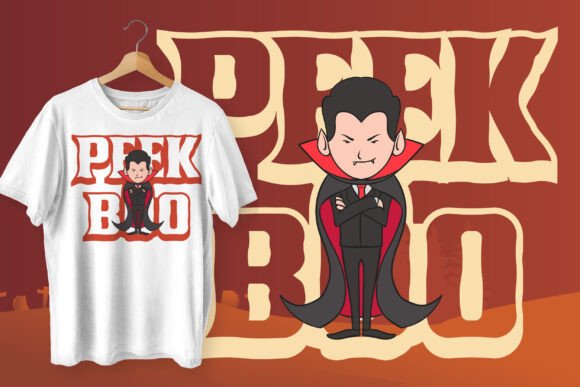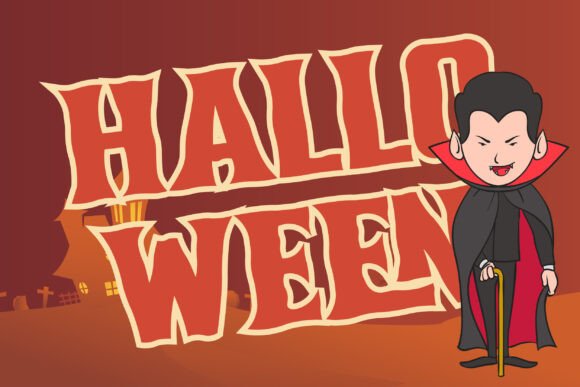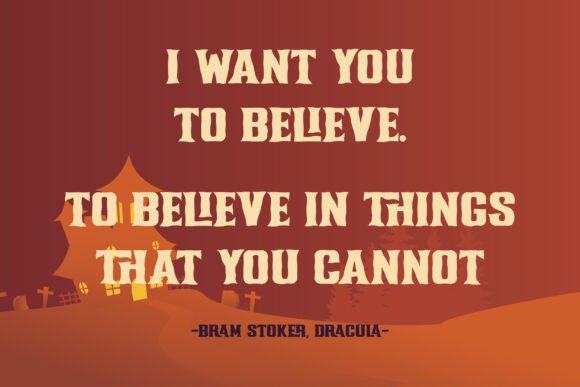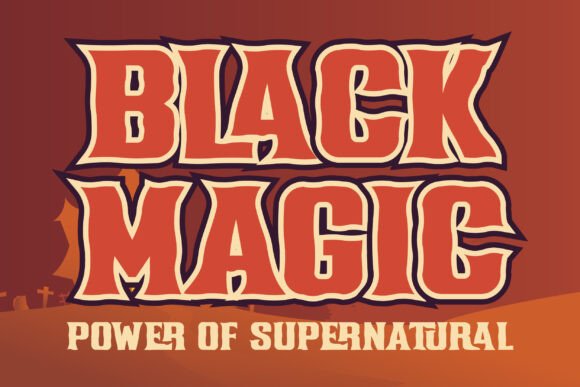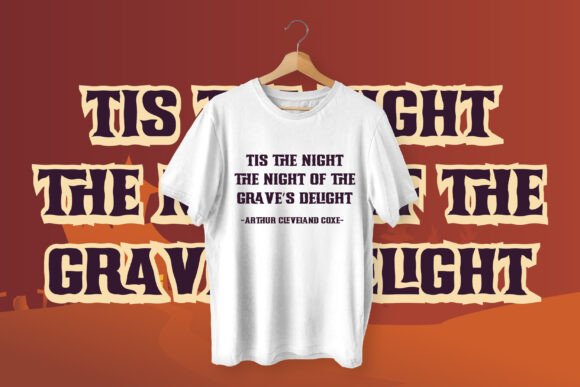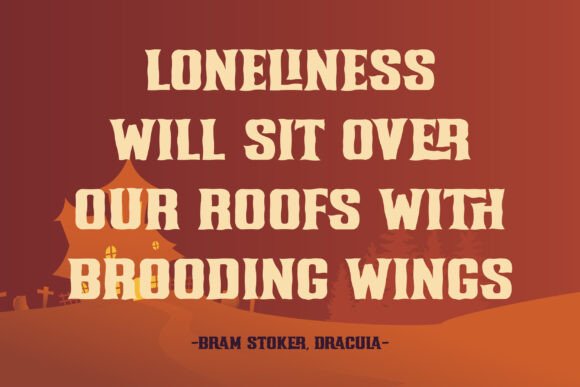
The Mysterious Allure of Dracula Secret Font
As a designer, I’ve had my fair share of late nights, pouring over font options for a project that’s just not quite coming together. I recall one particularly frustrating session where I was working on a spooky children’s book cover, and I just couldn’t find the right font to capture the eerie yet playful vibe I was going for. That was until I stumbled upon the Dracula Secret Font ✨. It was like a breath of fresh air – the perfect blend of spooky and sophisticated that instantly elevated my design.
An Honest Review of Dracula Secret Font
So, what makes Dracula Secret Font so special? Let’s dive into the good stuff and, of course, a few quirks I’ve noticed.
- ✨ Unique and Eye-catching: This font has a one-of-a-kind charm that will make your projects stand out from the crowd.
- ✅ Versatile: Whether you’re working on book covers, children’s books, comics, posters, packaging, merchandise, or logotypes, Dracula Secret Font adapts beautifully.
- 💡 Inspires Creativity: The spooky yet elegant design sparks imagination, helping you to think outside the box.
While Dracula Secret Font is incredibly versatile, there are a few things to keep in mind:
- 🤔 Legibility at Small Sizes: Like many display fonts, it may lose legibility when scaled down too much. It’s best used at larger sizes for maximum impact.
- ⚠️ Glyph Variety: While it has a great selection of characters, some users might find the lack of extensive language support or additional dingbats a bit limiting.
While the exact origins of Dracula Secret Font might be shrouded in mystery, it’s clear that it was designed with the intention of capturing a certain eerie elegance. The creator likely drew inspiration from vintage typefaces, combined with a dash of modern creativity to produce something entirely unique. Whether or not there’s a direct connection to the famous vampire, the font certainly evokes a sense of mystery and allure.
A: While it’s technically possible, Dracula Secret Font is primarily designed as a display font. Its unique features and potential legibility issues at smaller sizes make it less ideal for extensive body text.
A: The font might support a range of characters, but its language support can be limited. It’s best to test it with your specific language needs.
Dracula Secret Font is more than just a typeface – it’s a design statement. With its unique charm, versatility, and creative potential, it’s an excellent addition to any designer’s toolkit. Whether you’re crafting a spooky children’s book or a bold poster, this font is sure to inspire and elevate your work.